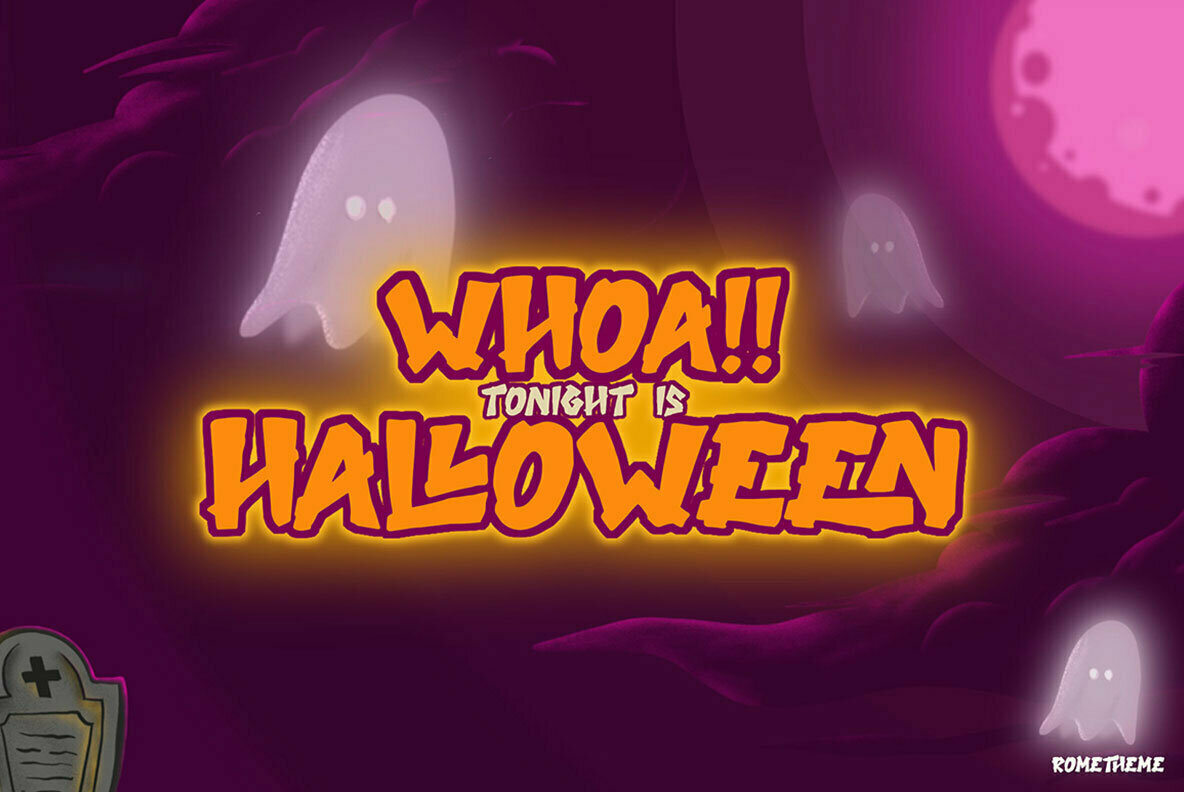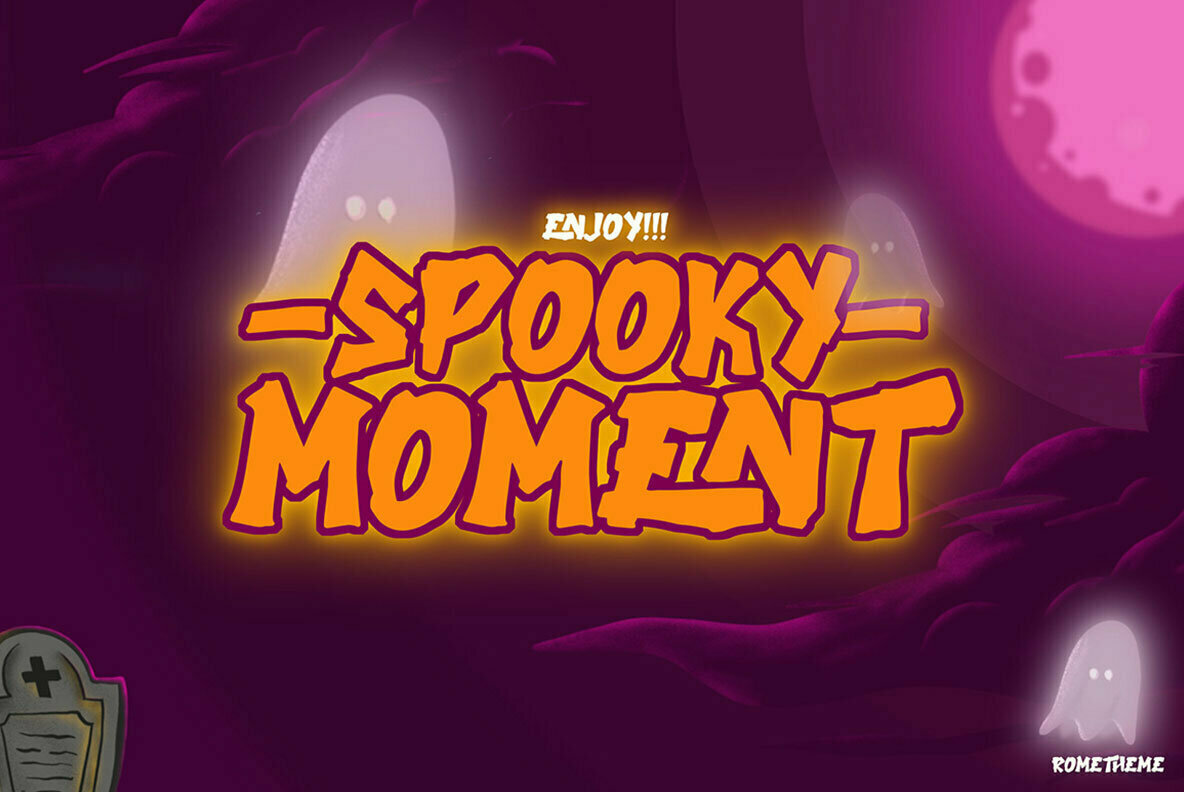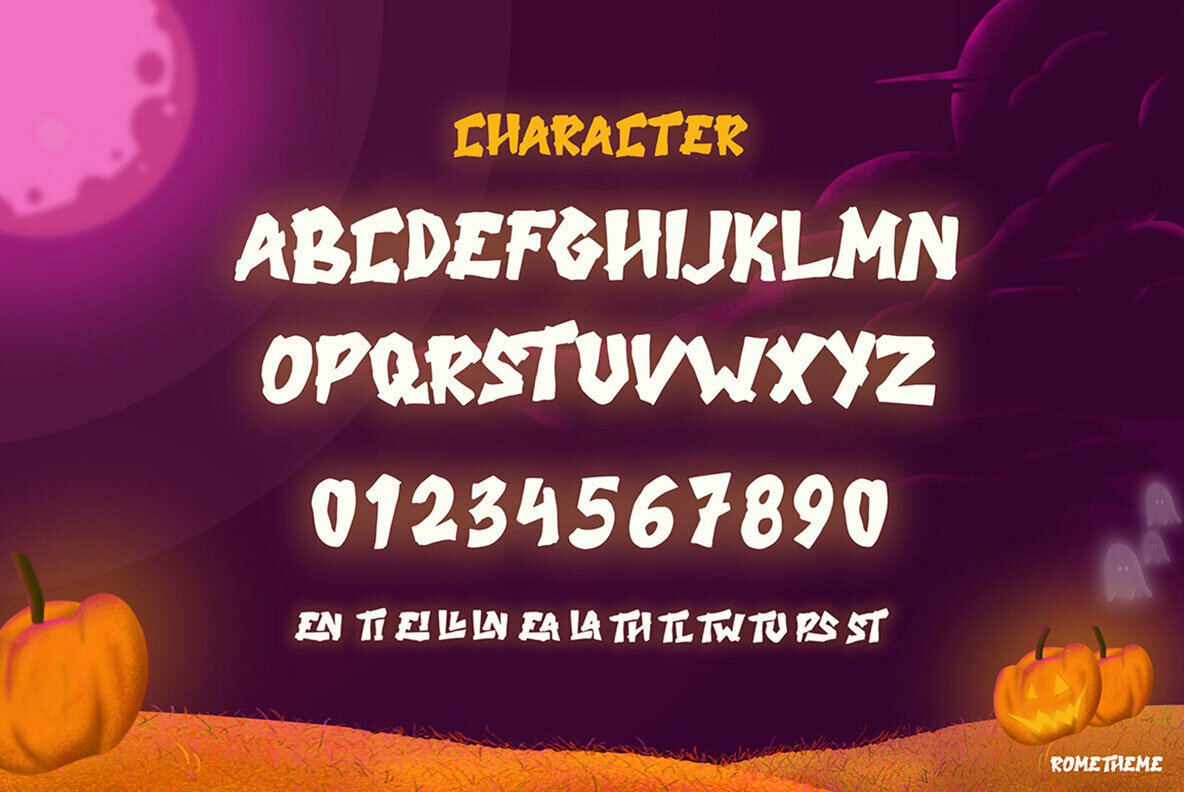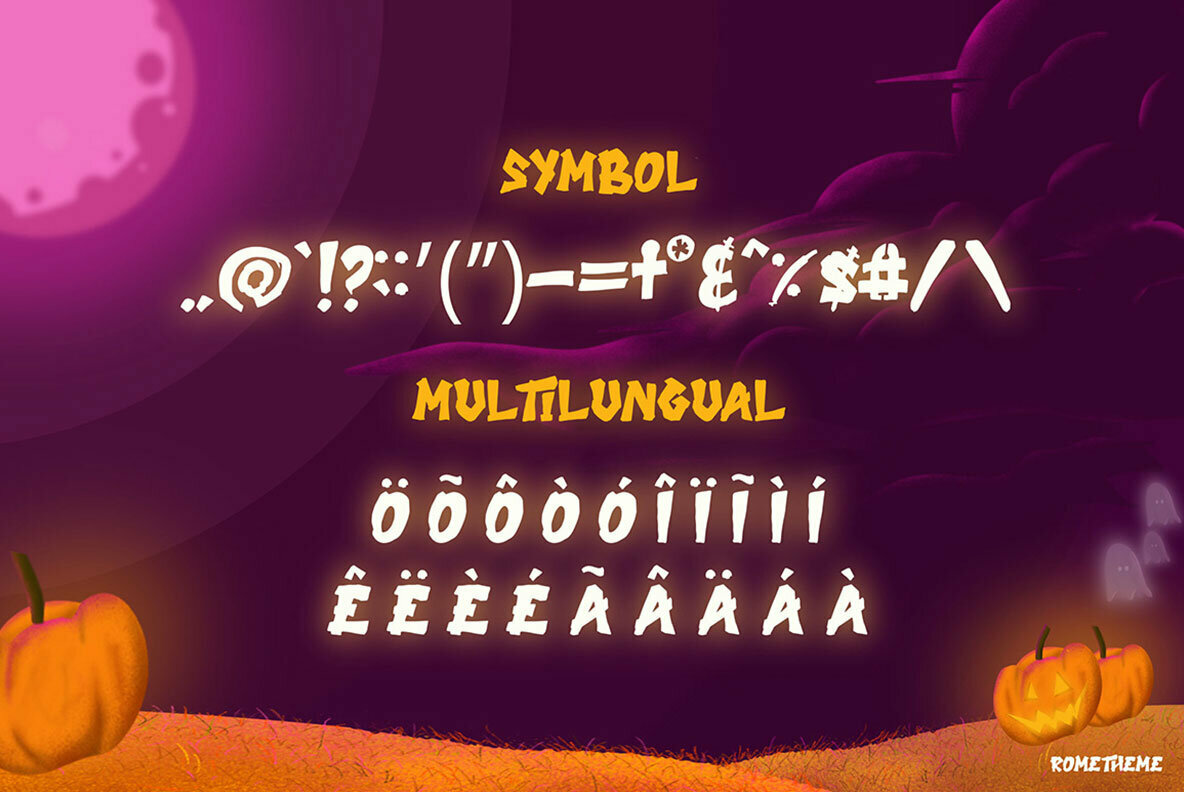
Best of Treat
Embrace the season's spirit with Best of Treat, an artfully crafted typeface imbued with Halloween's bold and eerie aesthetics. Ideal for infusing a spooky vibe into your design endeavors, each letter captures the essence of bold, hand-drawn style—perfectly tailored for thematic projects. From posters, t-shirts, and headlines to flyers and album covers, this typeface lends itself to various professional applications. It's a solid choice for branding, magazine layouts, and even social media graphics, all while maintaining a decidedly hair-raising flair. Let Best of Treat inspire your next Halloween-themed creation, setting the stage for designs that are both chilling and captivating.Best of Treat: Handdrawn Typeface for Halloween